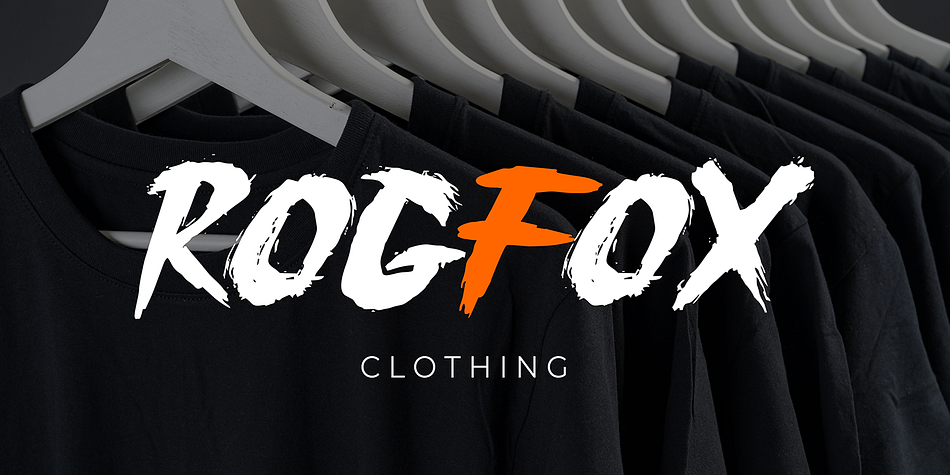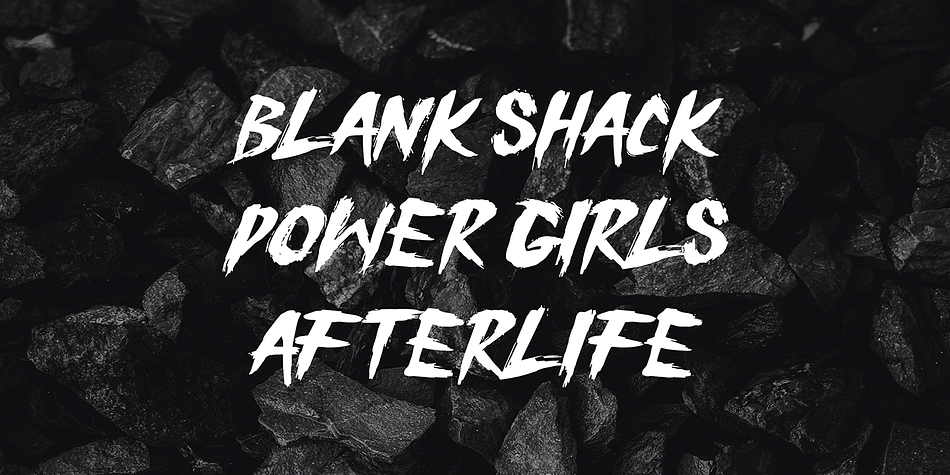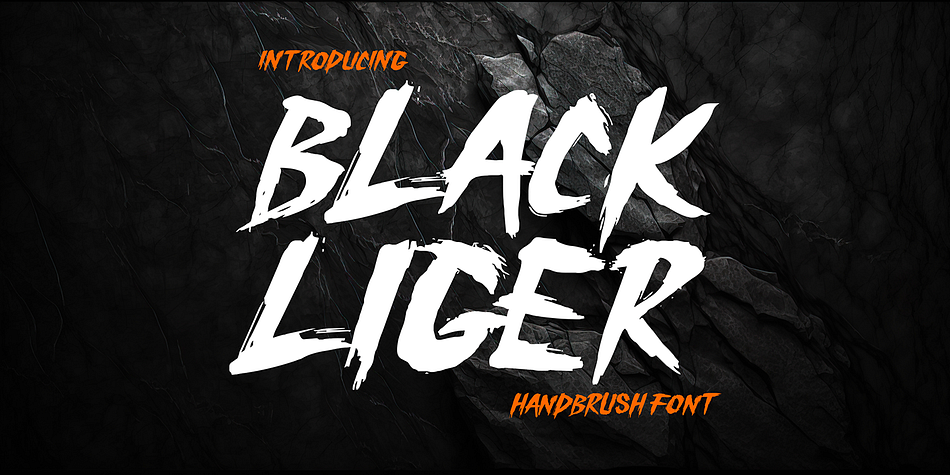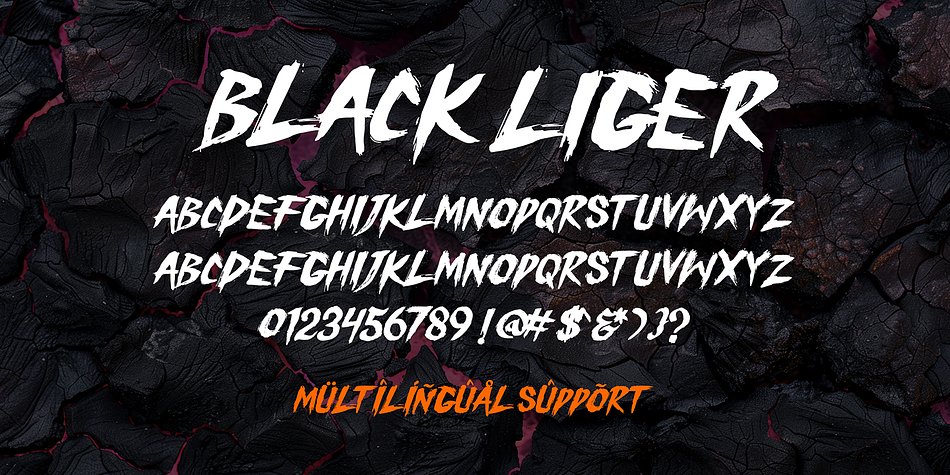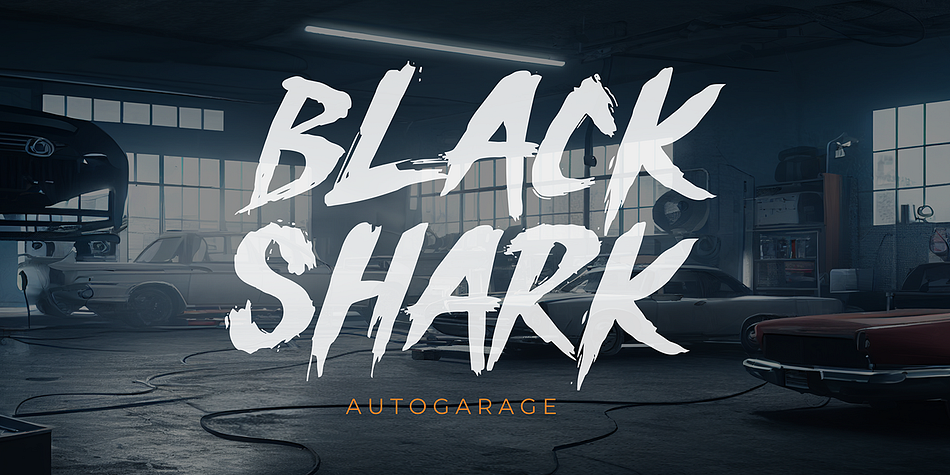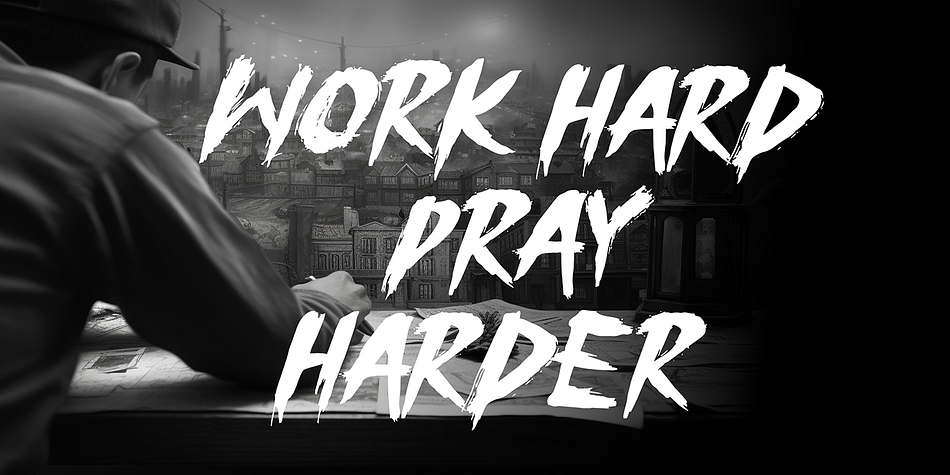
BLACK LIGER
Black Liger is a grunge font family published by Cikareotype Studio.
“Black Liger” is a handwritten brush script font that combines the natural flow of brush strokes with the elegance of hand lettering. Making it ideal for invitations, logos, posters, and branding projects. Its dynamic and expressive characters bring a sense of creativity and individuality, ensuring that your text stands out with a bold yet refined look. “Black Liger” effortlessly captures the essence of hand-crafted typography, making your designs truly unique.